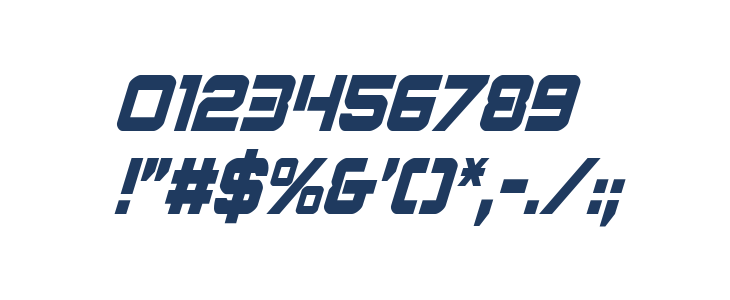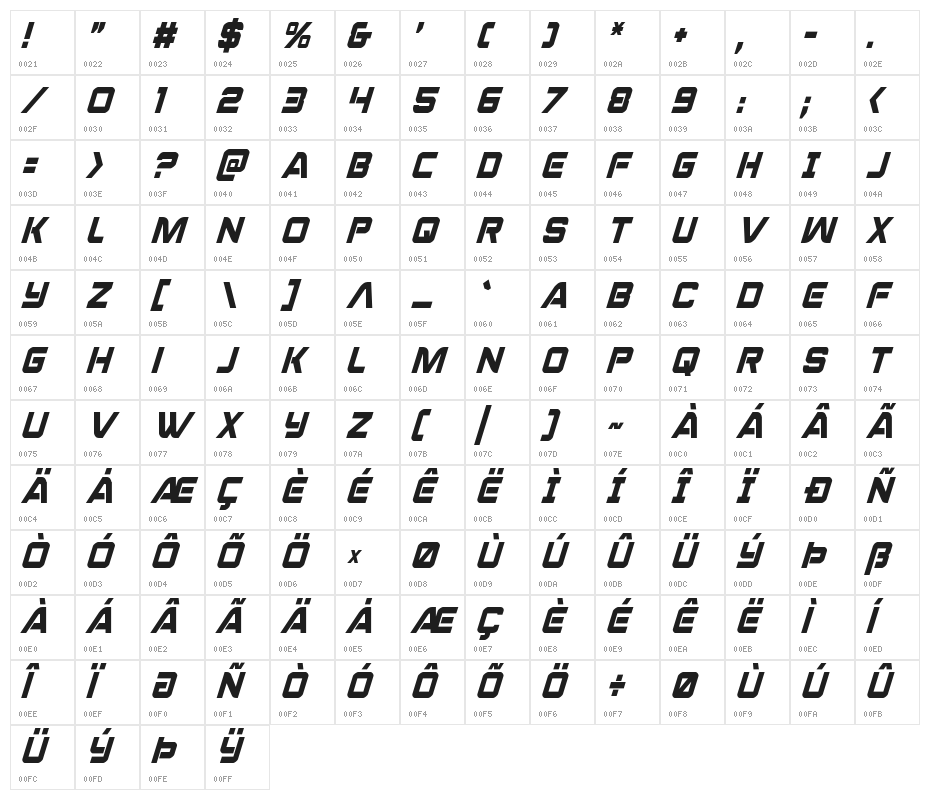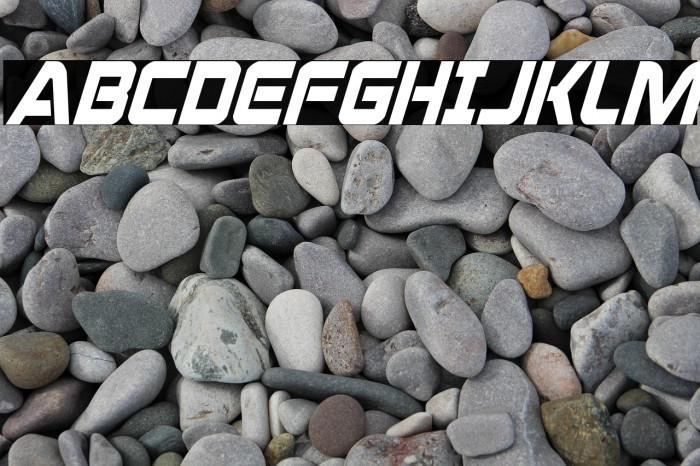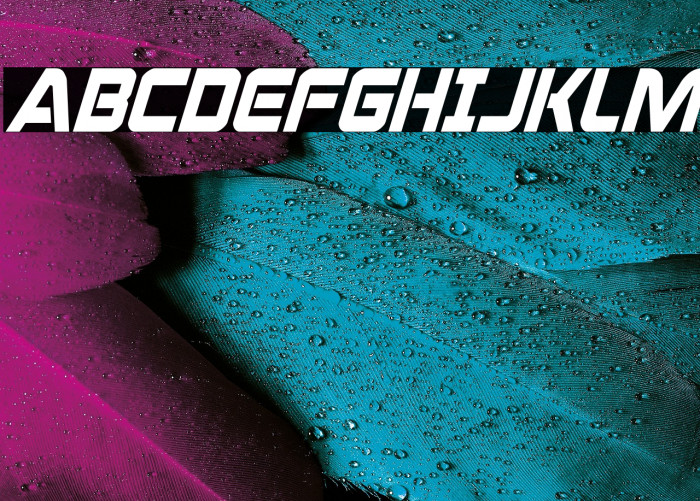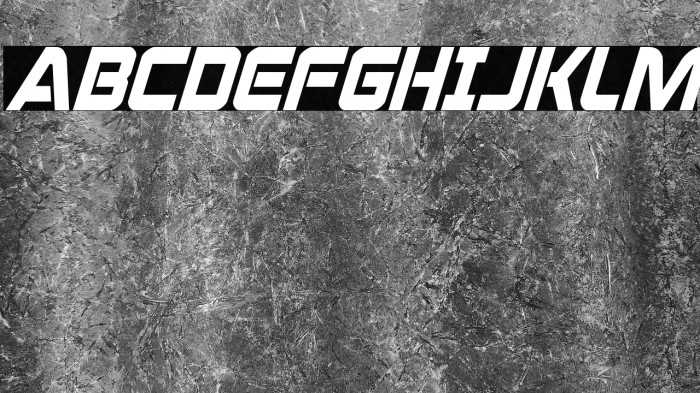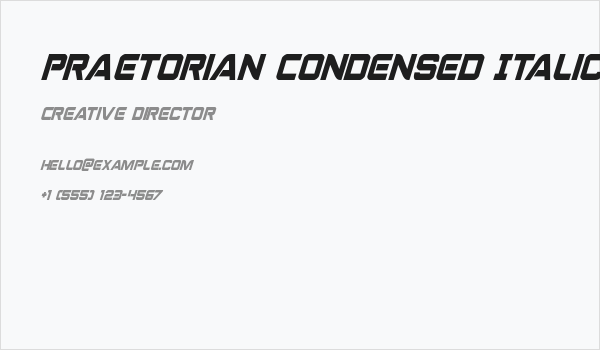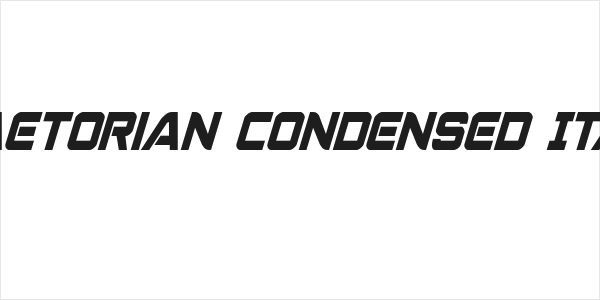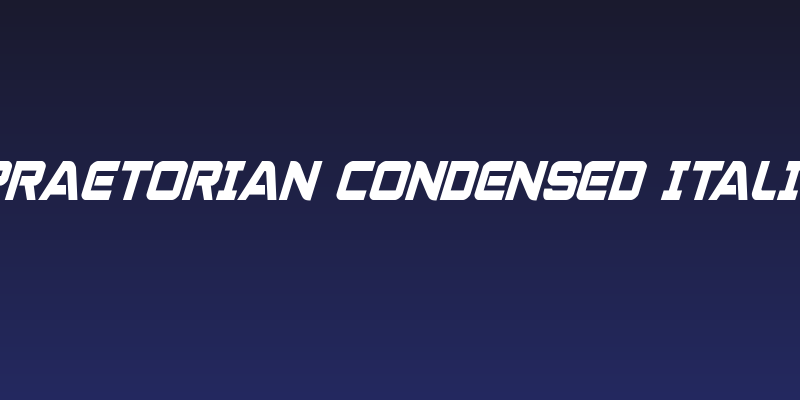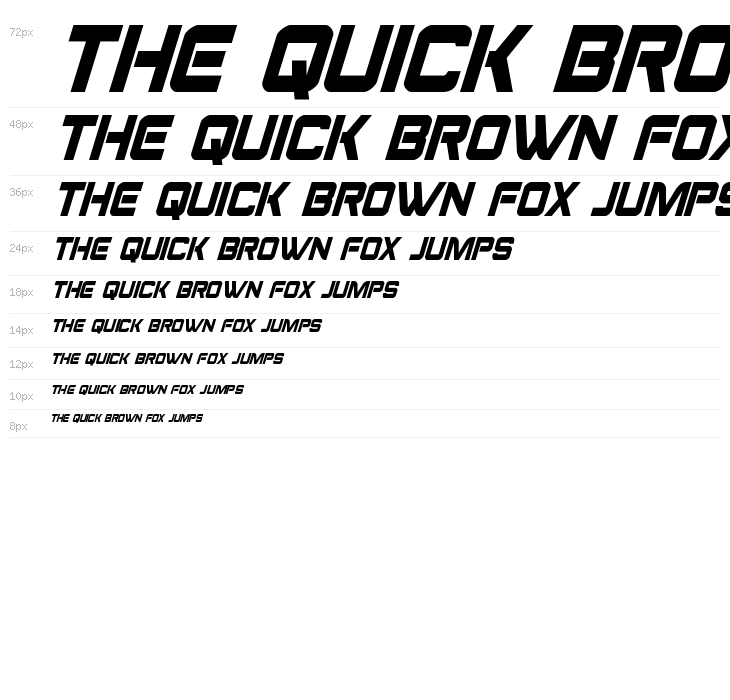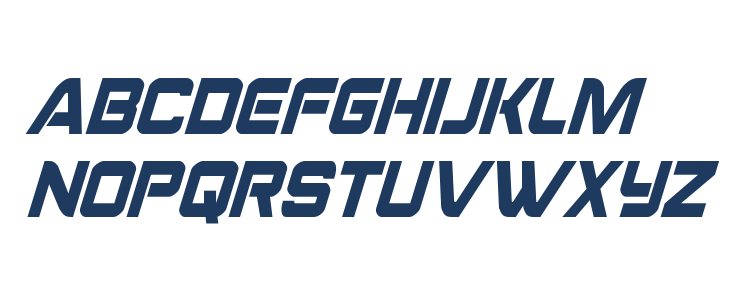
Praetorian Condensed Italic Font
Praetorian Condensed Italic Description
This font features a bold, italicized style with a condensed width, giving it a dynamic and modern appearance. The characters are sharply angled, creating a sense of movement and speed. The uppercase letters are prominent and assertive, while the lowercase letters maintain the same energetic slant. Numbers and special characters are designed with the same boldness and angularity, ensuring consistency across all elements. The font's condensed nature allows for efficient use of space, making it suitable for impactful headlines and titles. Its strong visual presence is ideal for projects requiring a bold statement.
| Proposed Projects | Ideal for sports branding, automotive advertisements, dynamic posters, and modern web design. |